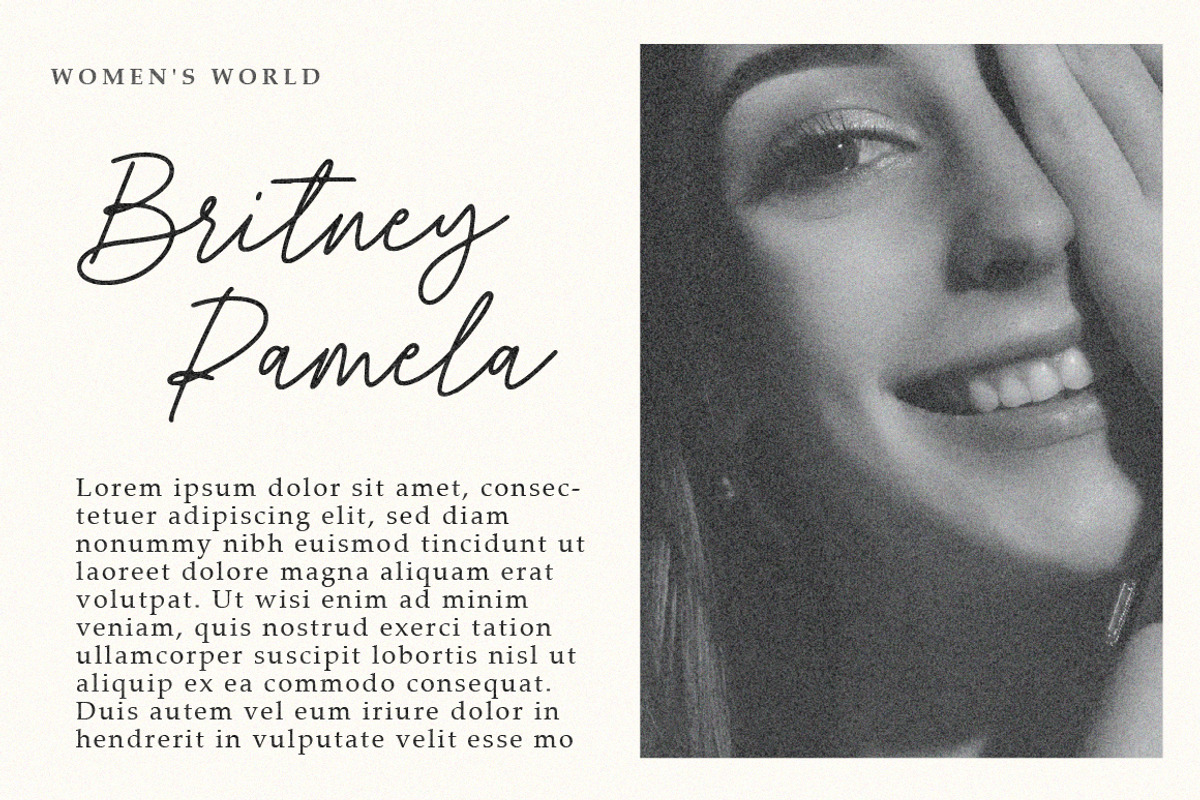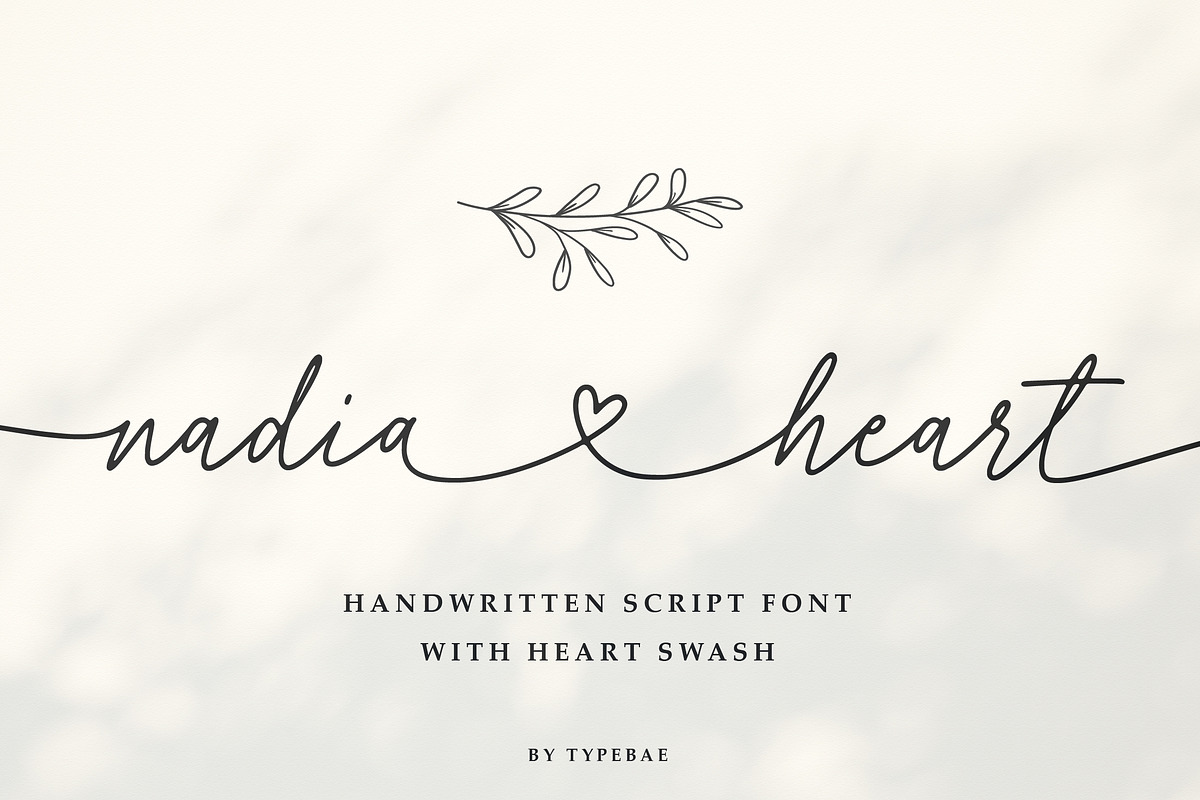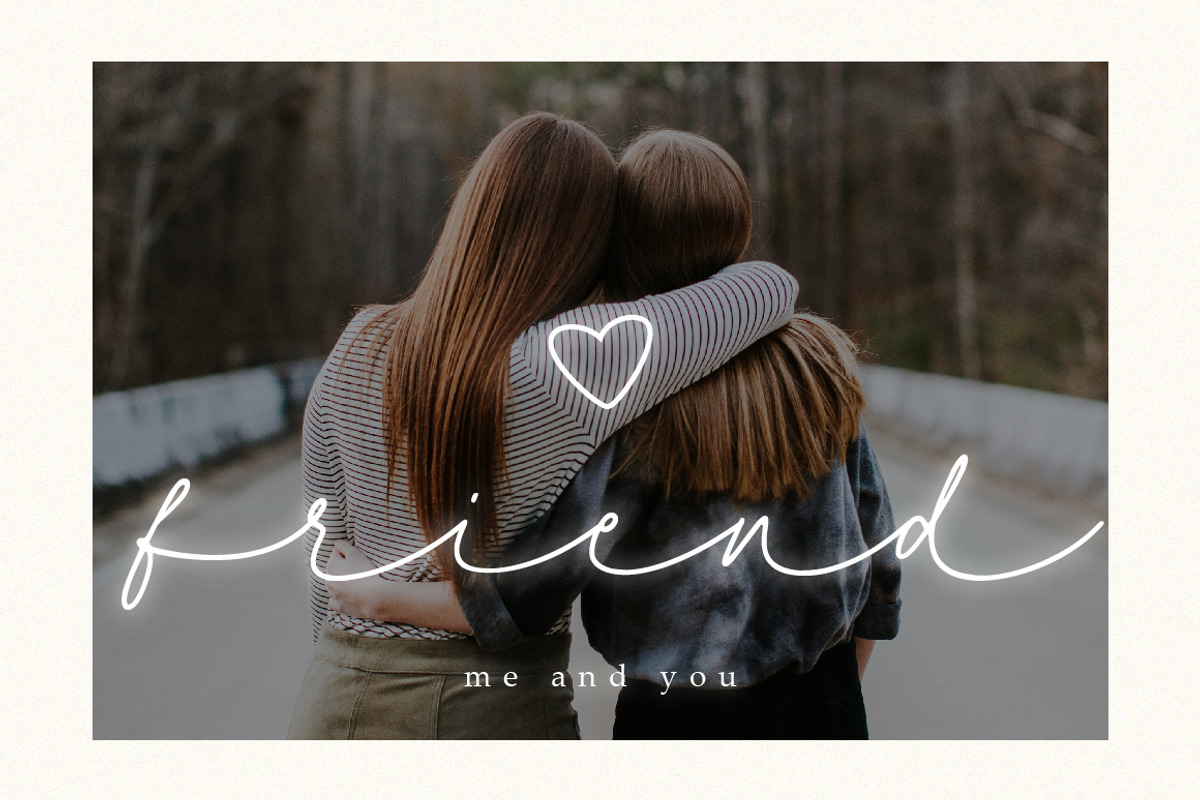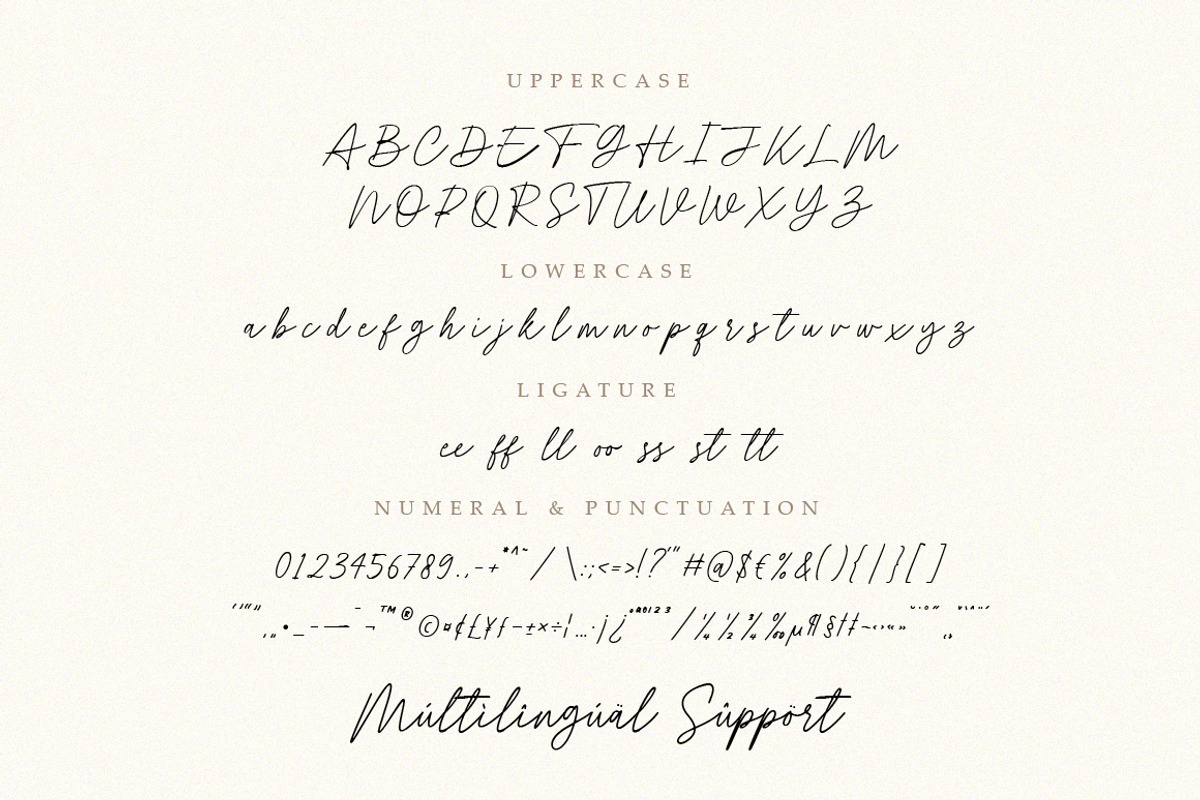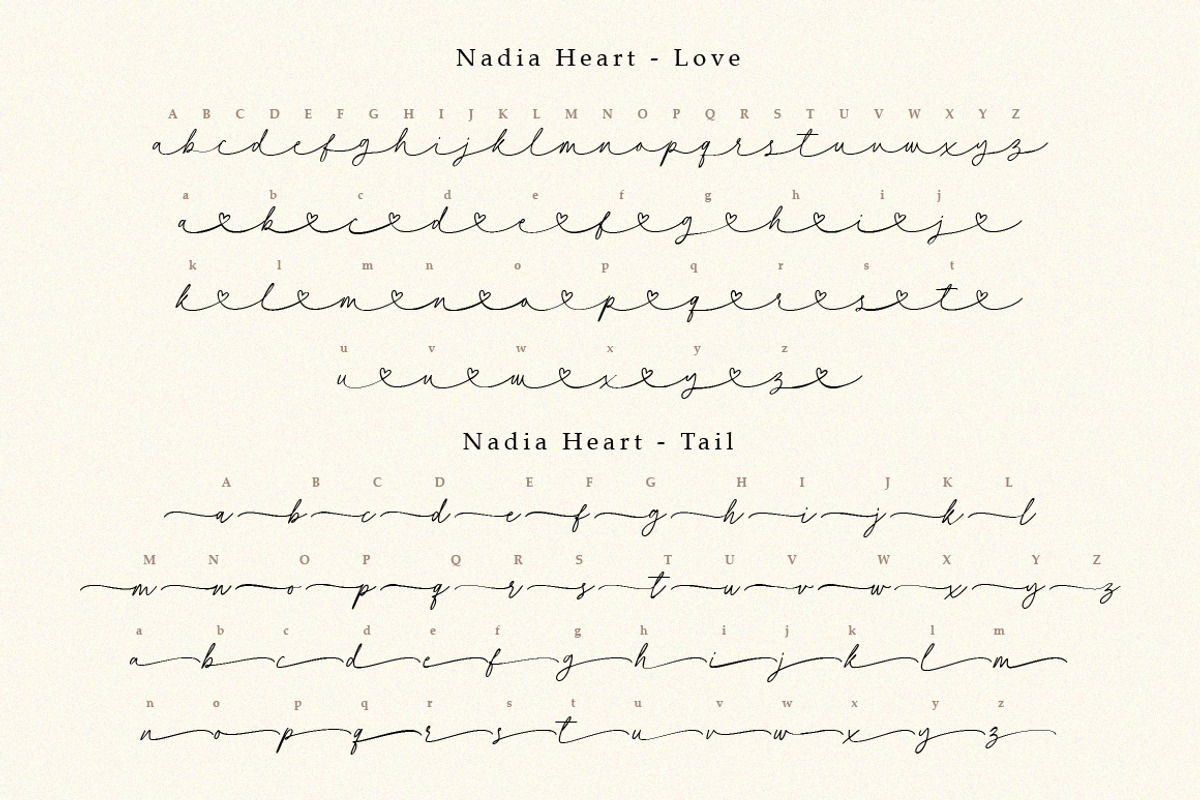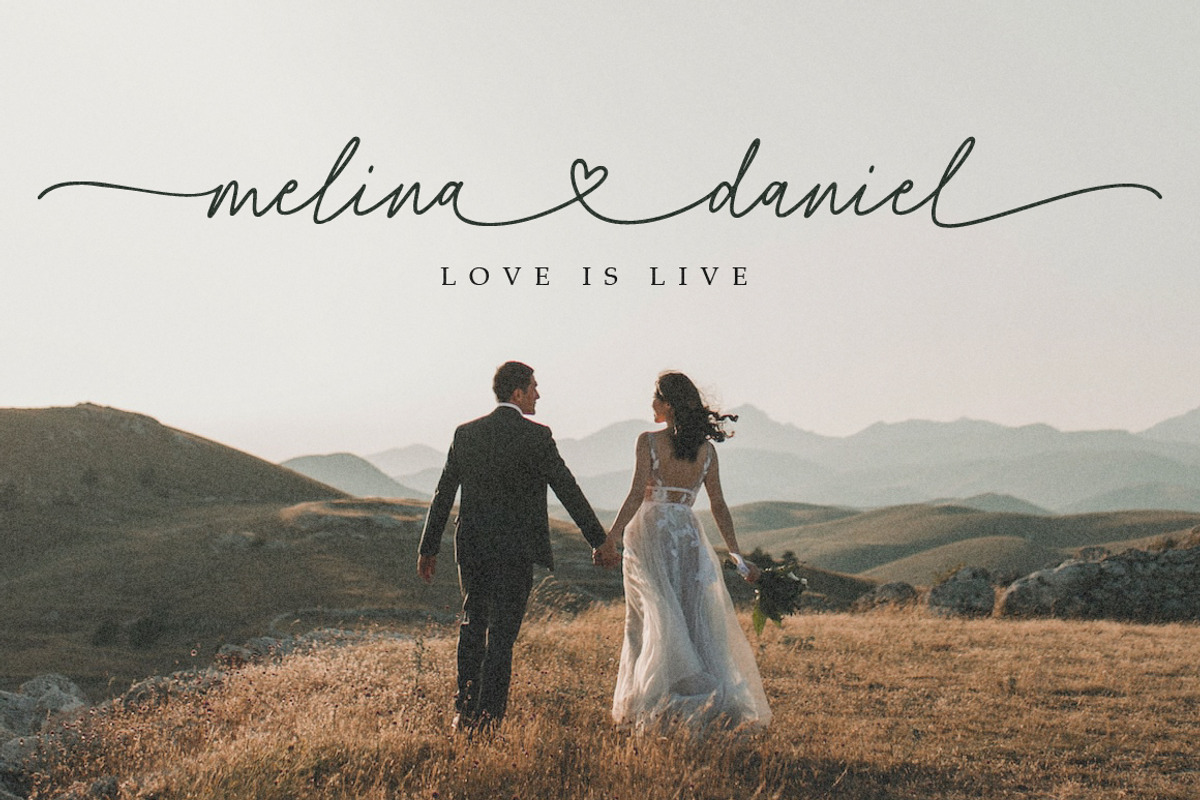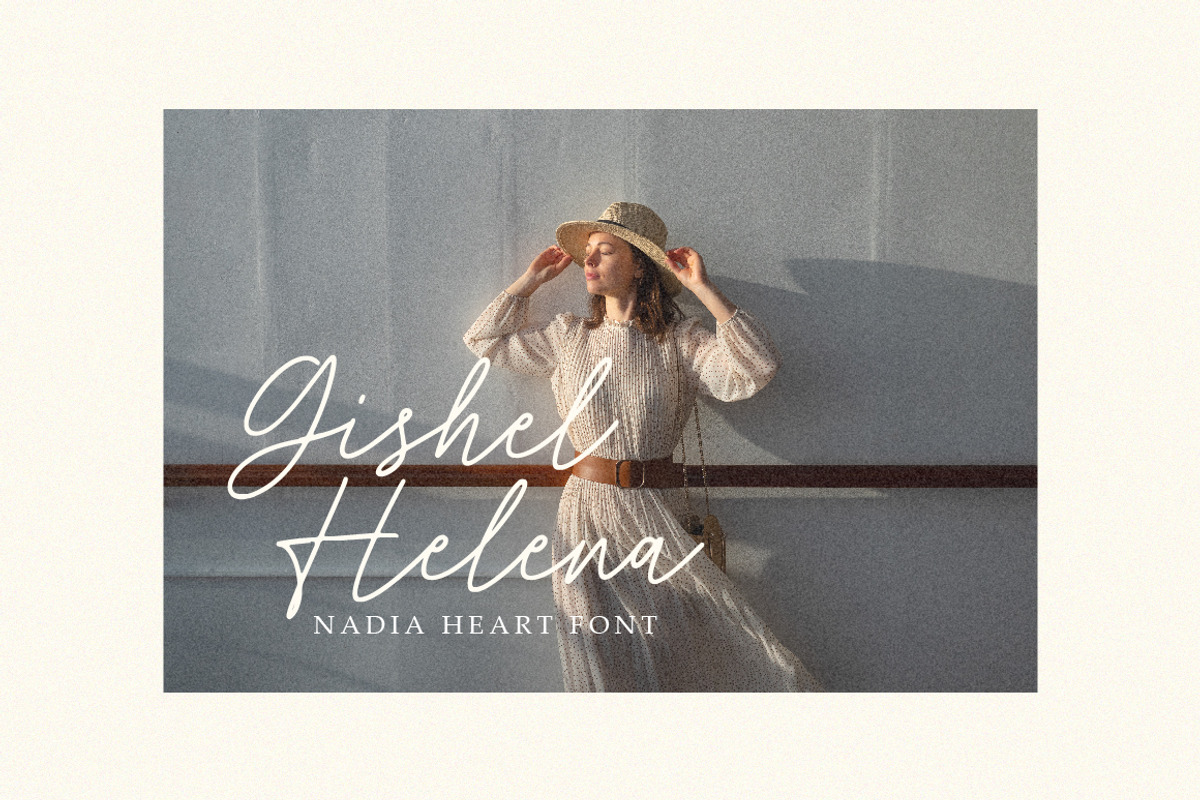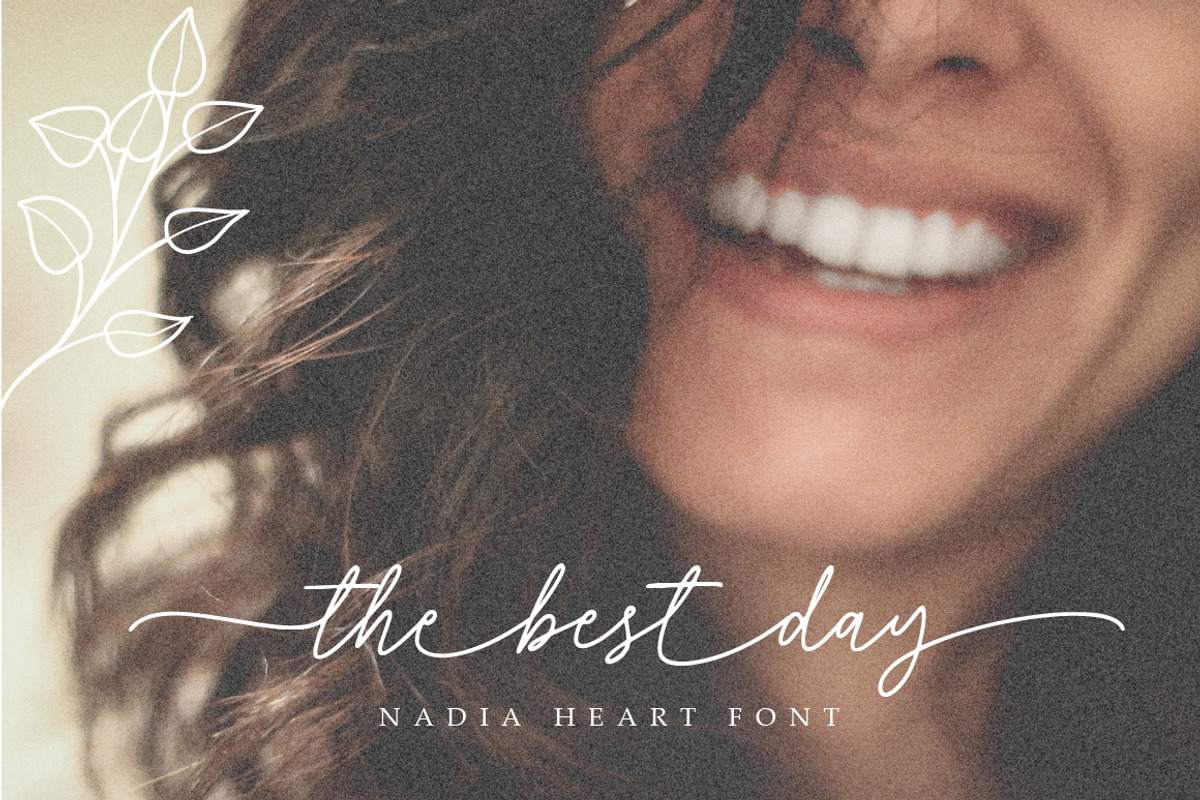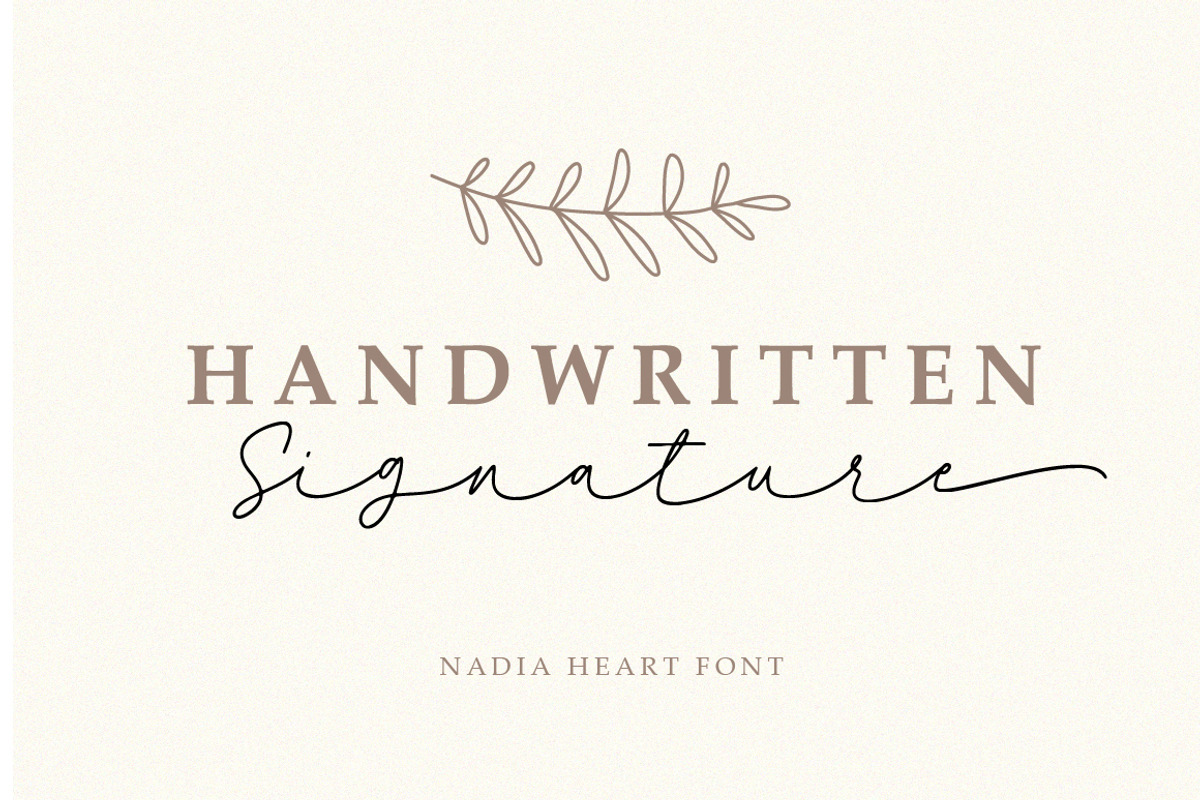
Nadia Heart Script Font with Swash
Nadia Heart Font is a lovely handwritten script font that emanates elegance. It has enthralling tails at the beginning and conclusion of each stroke and captivating letter alternatives. The font's distinguishing feature is its heart-shaped connecting tail, which lends a romantic and charming touch. Nadia Heart Font will fascinate and inspire you with its delicate style.
Feature: Ligature, Multilingual and PUA encoded.